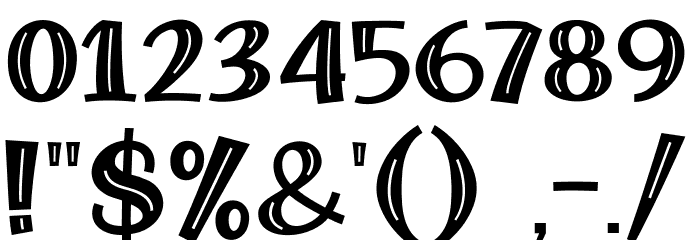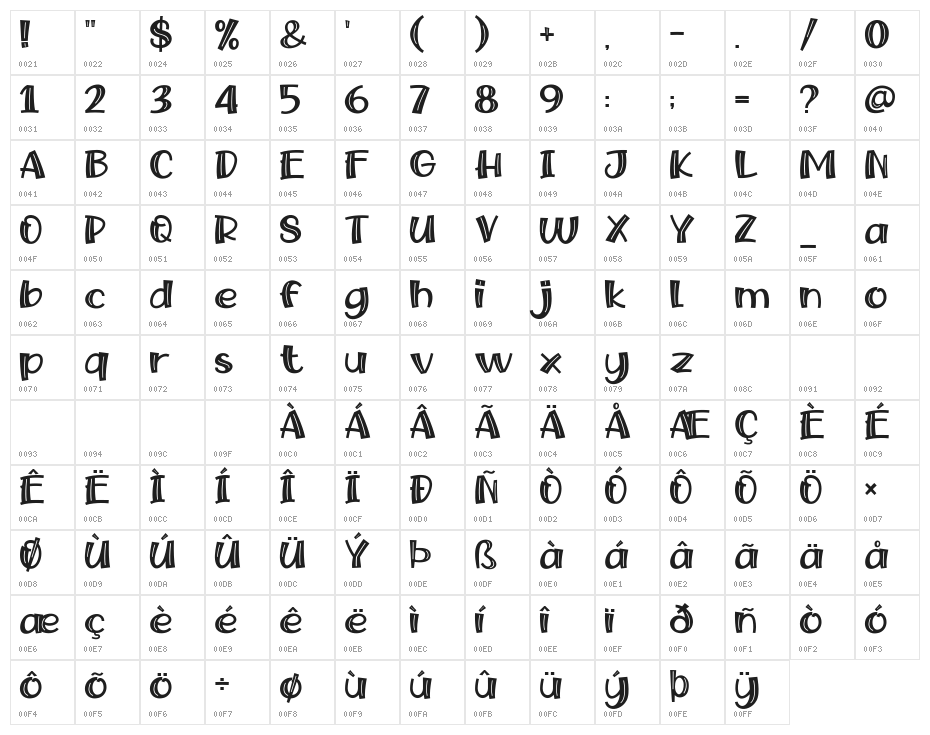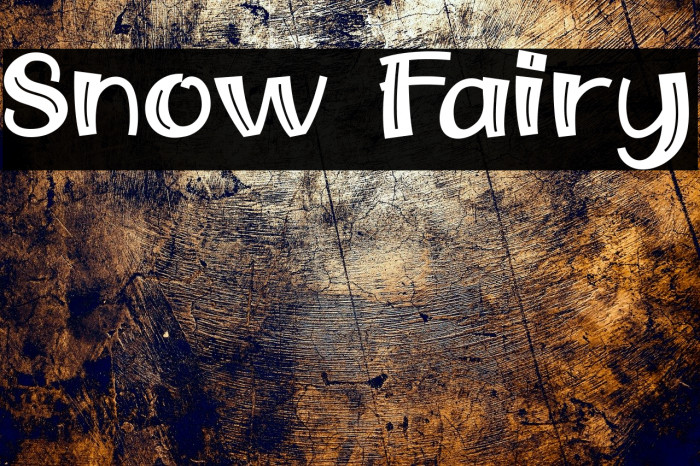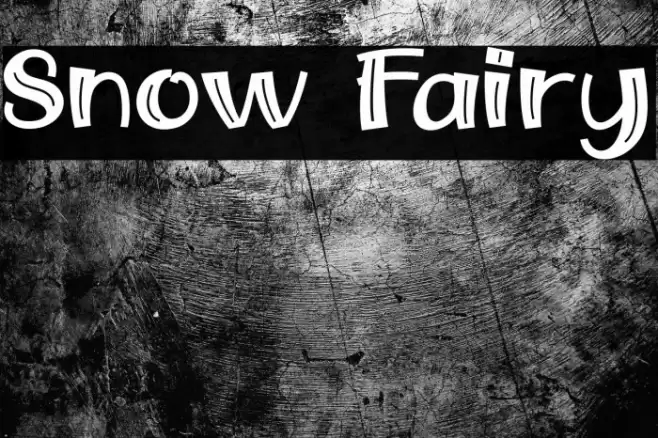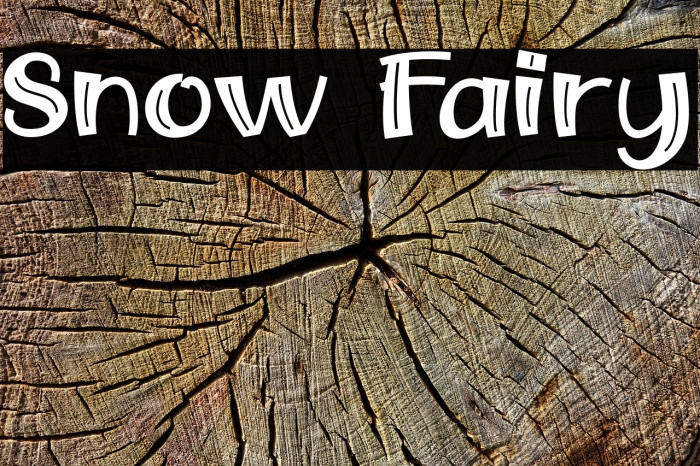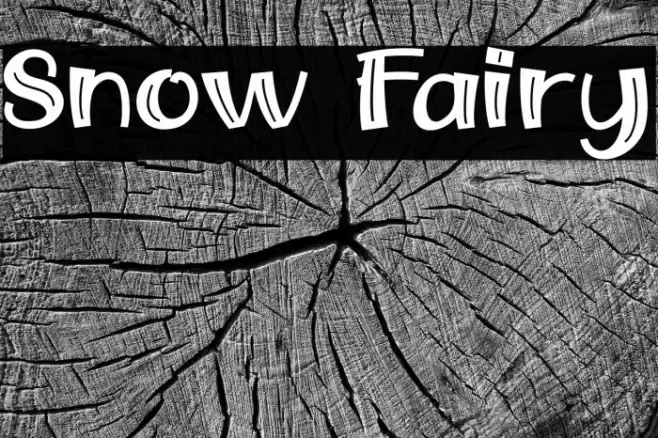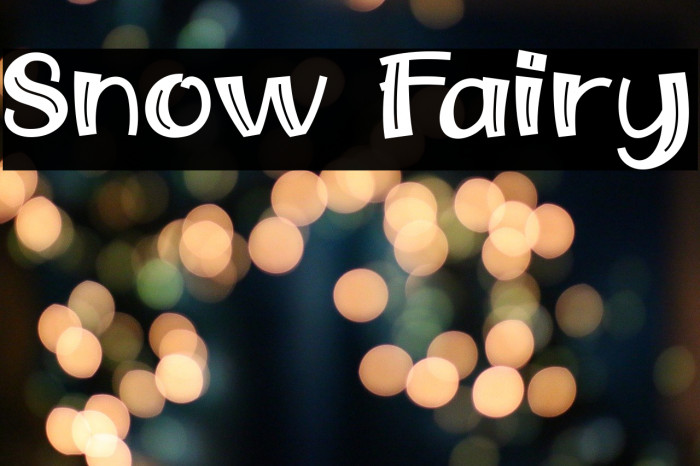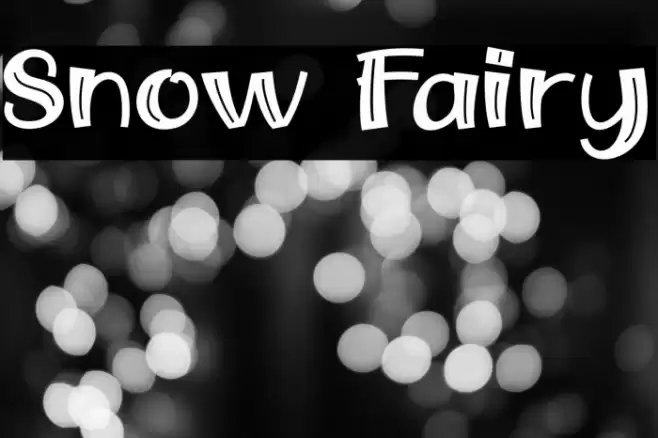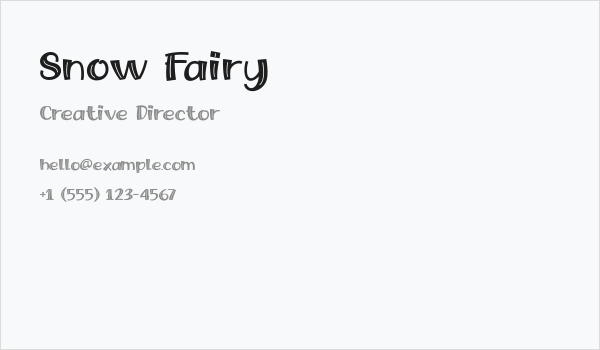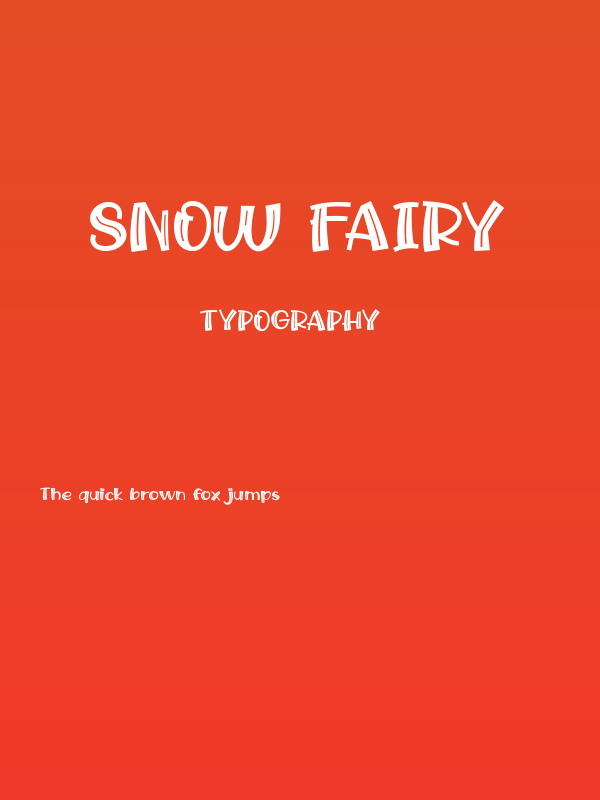
Snow Fairy Font
Snow Fairy Description
This playful and whimsical font features a hand-drawn style with a slightly irregular and dynamic appearance. The characters have a bold presence with thick strokes and subtle curves, giving them a lively and energetic feel. The uppercase and lowercase letters maintain a consistent style, with a slight tilt that adds to the font's playful nature. The numbers and special characters are designed to match the overall aesthetic, ensuring a cohesive look across all text. This font is perfect for projects that require a fun and informal touch, such as children's books, greeting cards, or playful branding materials.
| Proposed Projects | Ideal for children's books, greeting cards, playful branding, and informal invitations. |